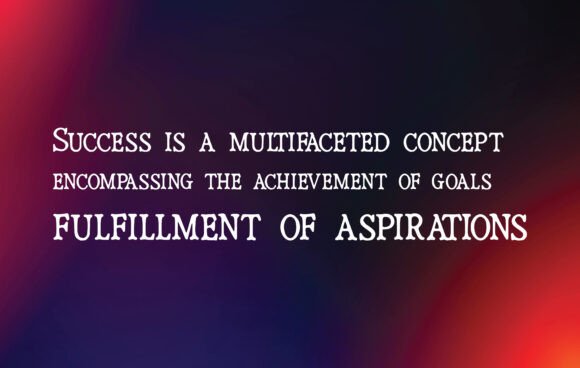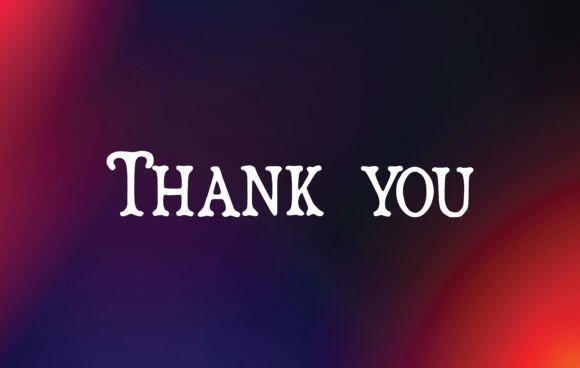
Aryan Font: Elevate Your Creative Projects with Elegance and Sophistication
In the world of typography, fonts play a crucial role in bringing creative ideas to life. Among the numerous fonts available, Aryan Font stands out as a lovely and beautiful serif font that has the potential to take your projects to the highest level. Whether you’re a designer, craftsperson, or simply someone who appreciates the art of typography, Aryan Font is an excellent choice for creating eye-catching logos, branding, and quotes.
The Beauty of Aryan Font
Aryan Font boasts a classic serif design that exudes elegance and sophistication. Its unique characteristics make it an ideal choice for projects that require a touch of refinement and luxury. The font’s serifs are carefully crafted to provide a sense of continuity and flow, making it perfect for body text, headings, and titles.
Key Features of Aryan Font
- Classic Serif Design: Aryan Font features a traditional serif design that adds a touch of sophistication to any project.
- Elegant and Refined: The font’s elegant and refined appearance makes it perfect for high-end branding, luxury packaging, and creative projects.
- Highly Versatile: Aryan Font is highly versatile and can be used for a wide range of projects, from logos and branding to quotes and body text.
- Easy to Read: The font’s clear and readable design ensures that your message is conveyed effectively, making it perfect for body text and headings.
Why Choose Aryan Font?
With so many fonts available, why choose Aryan Font? Here are a few compelling reasons:
- Unique and Distinctive: Aryan Font offers a unique and distinctive look that sets it apart from other serif fonts.
- High-Quality Design: The font is designed with high-quality craftsmanship, ensuring that it looks great in any context.
- Support for Multiple Languages: The font supports multiple languages, making it a great choice for global brands and projects.
Using Aryan Font in Your Projects
Aryan Font is an excellent choice for a wide range of projects, including:
- Logo Design: Create stunning logos that make a lasting impression with Aryan Font.
- Branding: Use Aryan Font to create a cohesive brand identity that exudes elegance and sophistication.
- Quotes and Posters: Add a touch of refinement to your quotes and posters with Aryan Font.
- Packaging Design: Use Aryan Font to create luxurious packaging that stands out on store shelves.
Tips for Using Aryan Font Effectively
To get the most out of Aryan Font, here are a few tips to keep in mind:
- Use it Sparingly: Aryan Font is a bold and elegant font, so use it sparingly to make a lasting impression.
- Experiment with Font Sizes: Experiment with different font sizes to create visual hierarchy and add emphasis to your text.
- Pair it with Other Fonts: Pair Aryan Font with other fonts to create a unique and visually appealing typography.
In conclusion, Aryan Font is a beautiful and elegant serif font that has the potential to elevate your creative projects to new heights. With its classic design, versatility, and ease of use, it’s an excellent choice for designers, craftspersons, and anyone who appreciates the art of typography. Whether you’re creating logos, branding, quotes, or packaging, Aryan Font is sure to make a lasting impression.